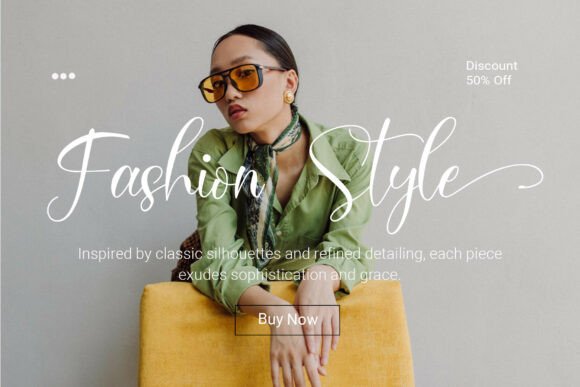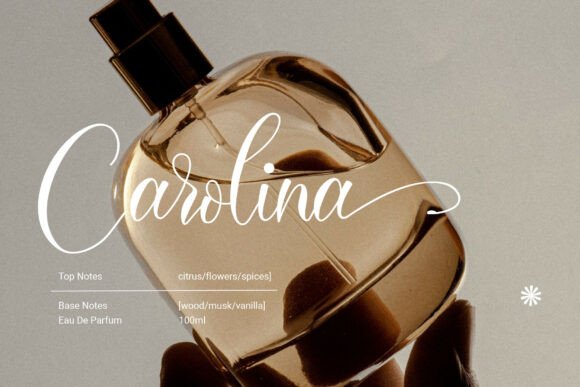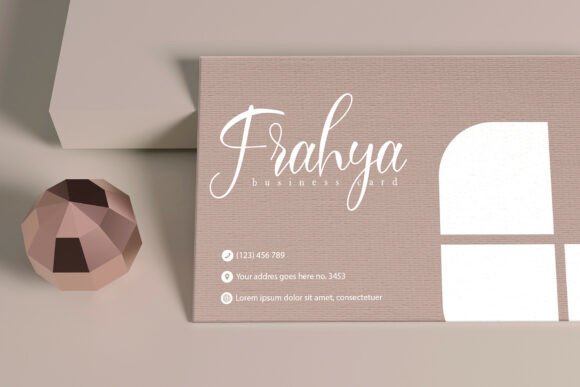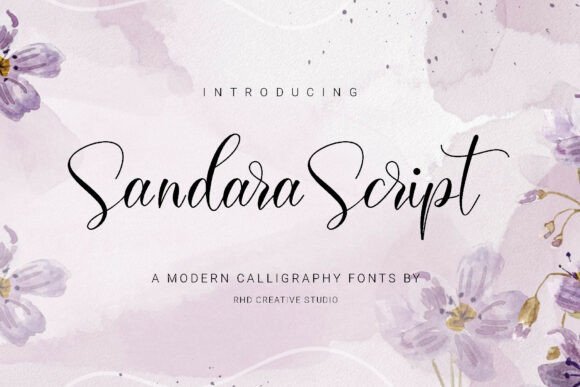
Introduction to Sandara Script Font
Sandara Script is an elegant script font with a contemporary atmosphere and impeccable form, inspired by timeless classic calligraphy.
Not too thin and not too thick, balanced and varied, this font was designed to enhance the beauty of your projects .